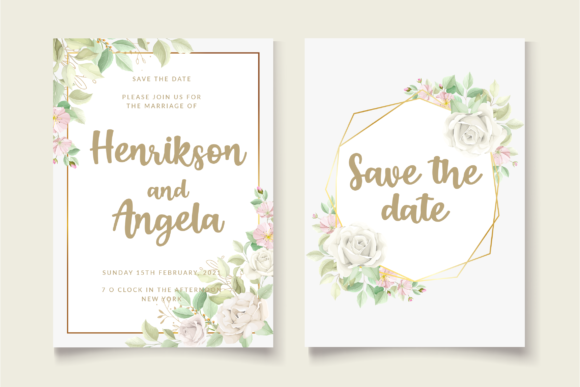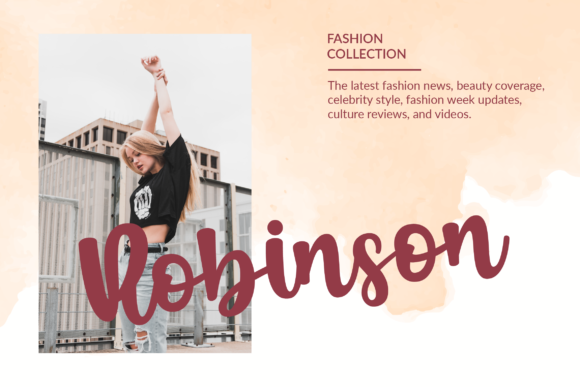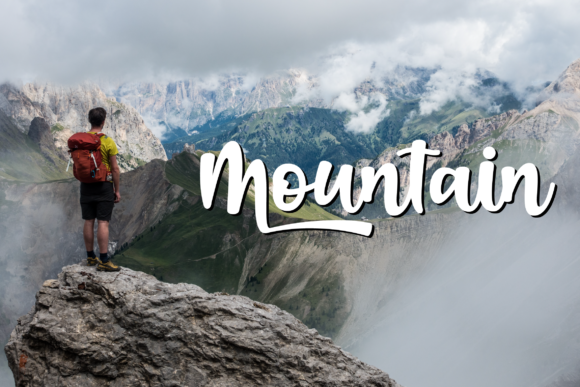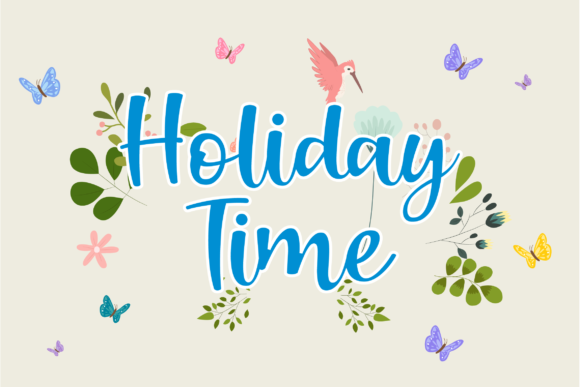
About Boendalove Font
Boendalove is a beautiful and elegant handwritten font. Fall in love with its incredibly versatile style and use it to create gorgeous wedding invitations, beautiful stationary art, eye-catching social media posts, and much more. Fall in love with its incredibly distinct and timeless style and use it to create spectacular designs!